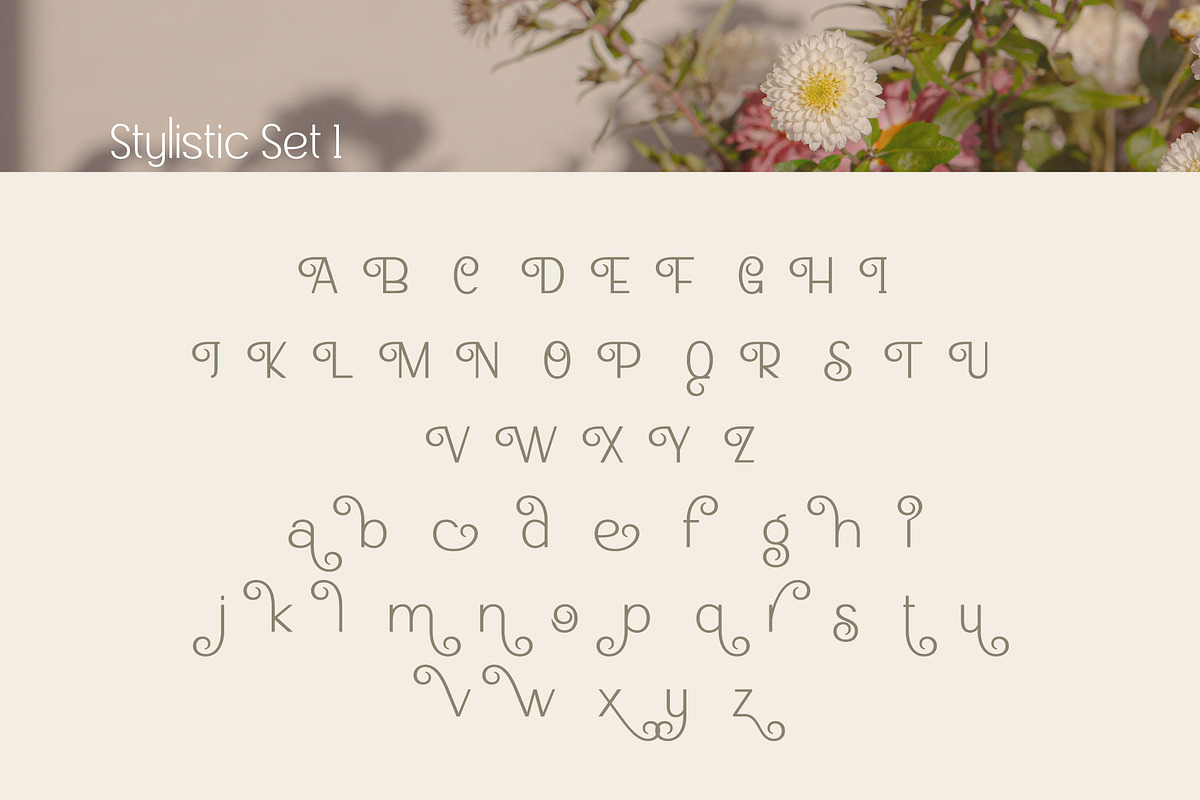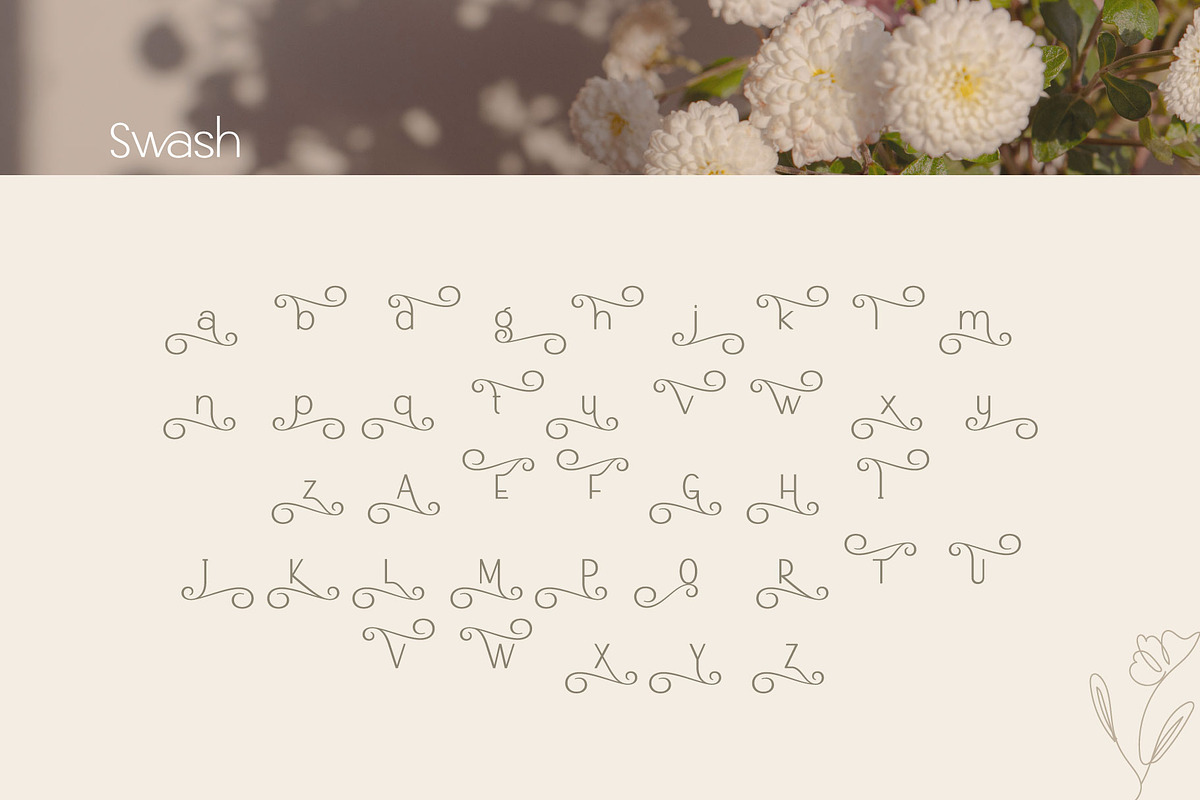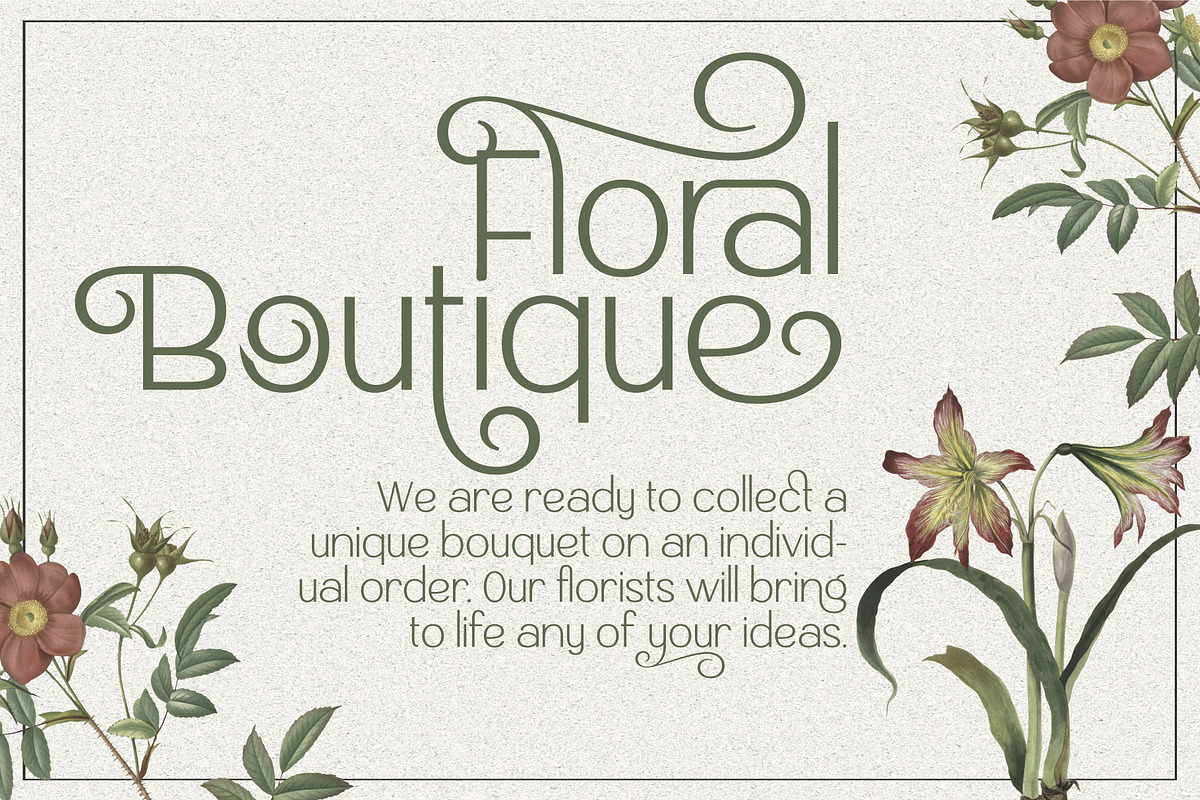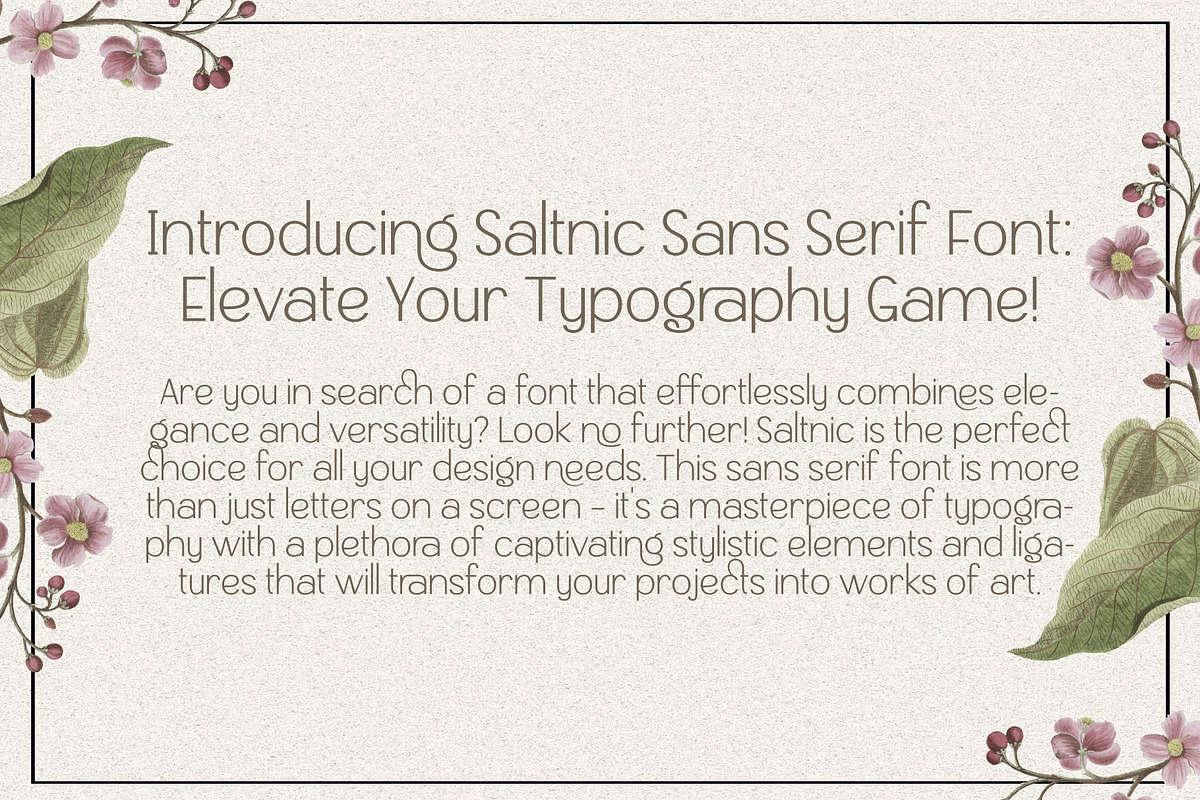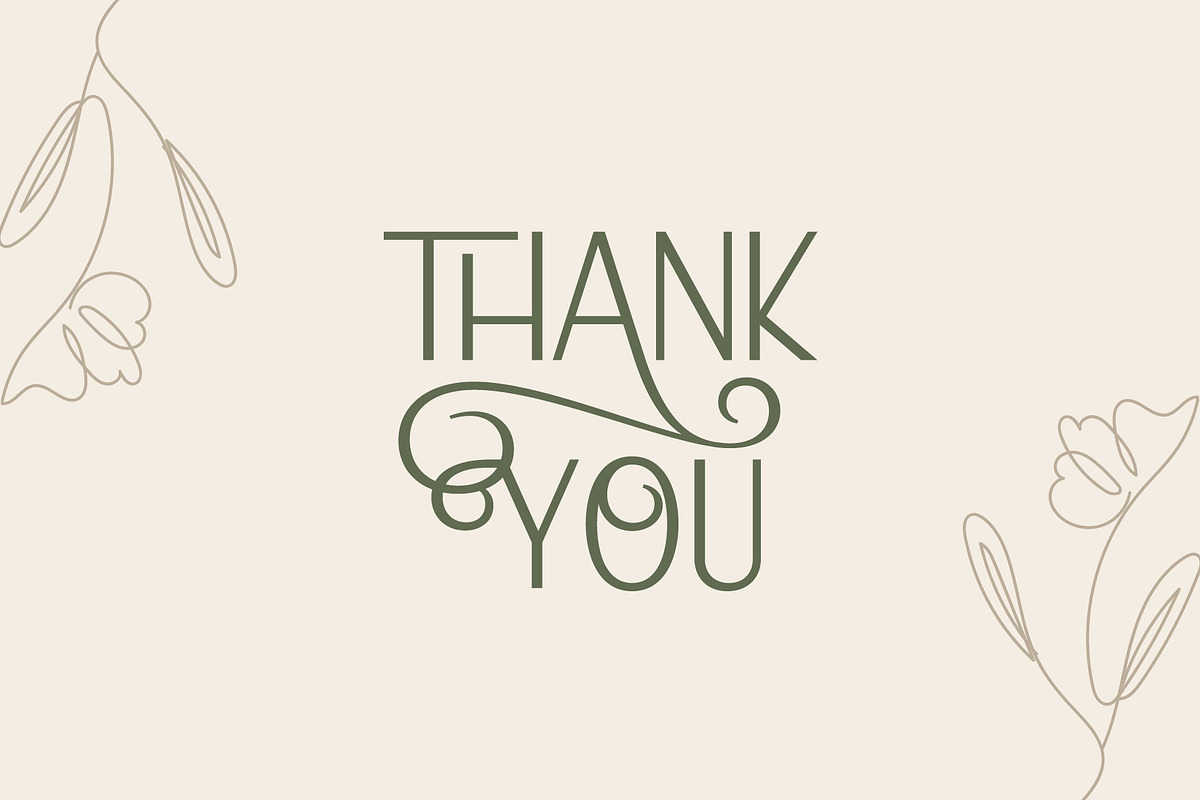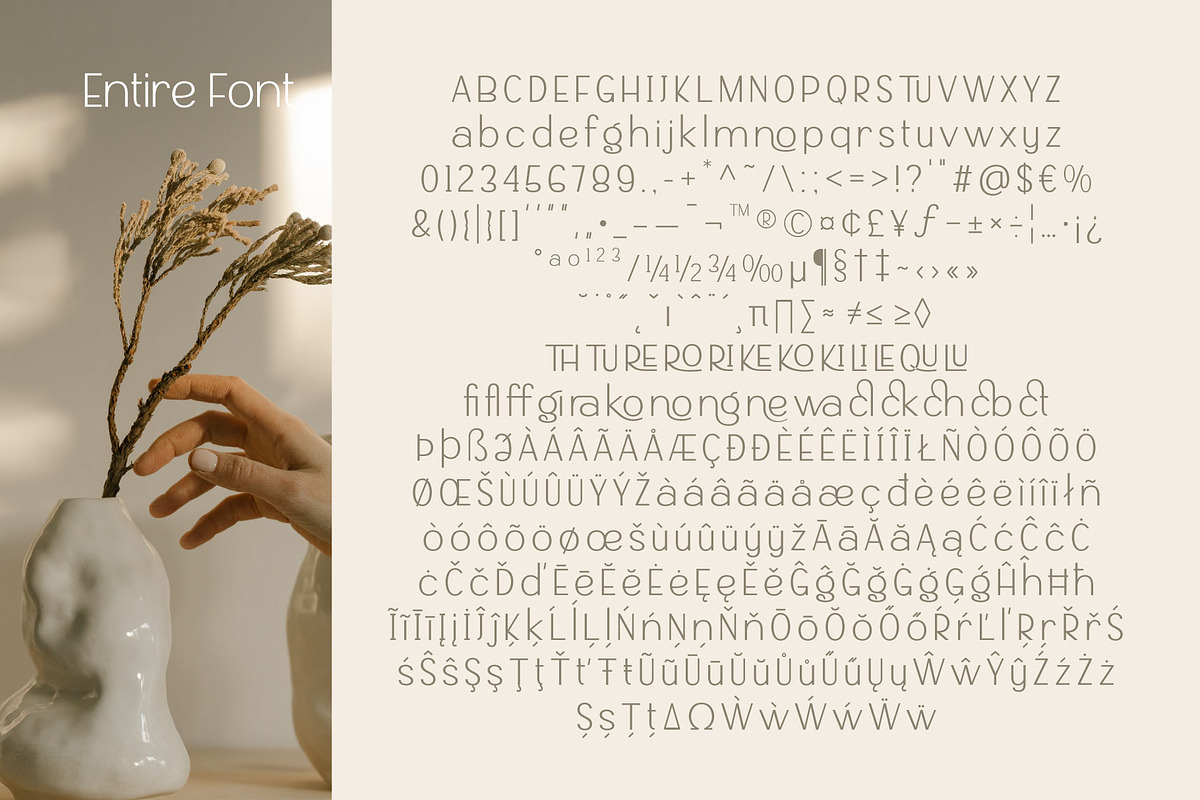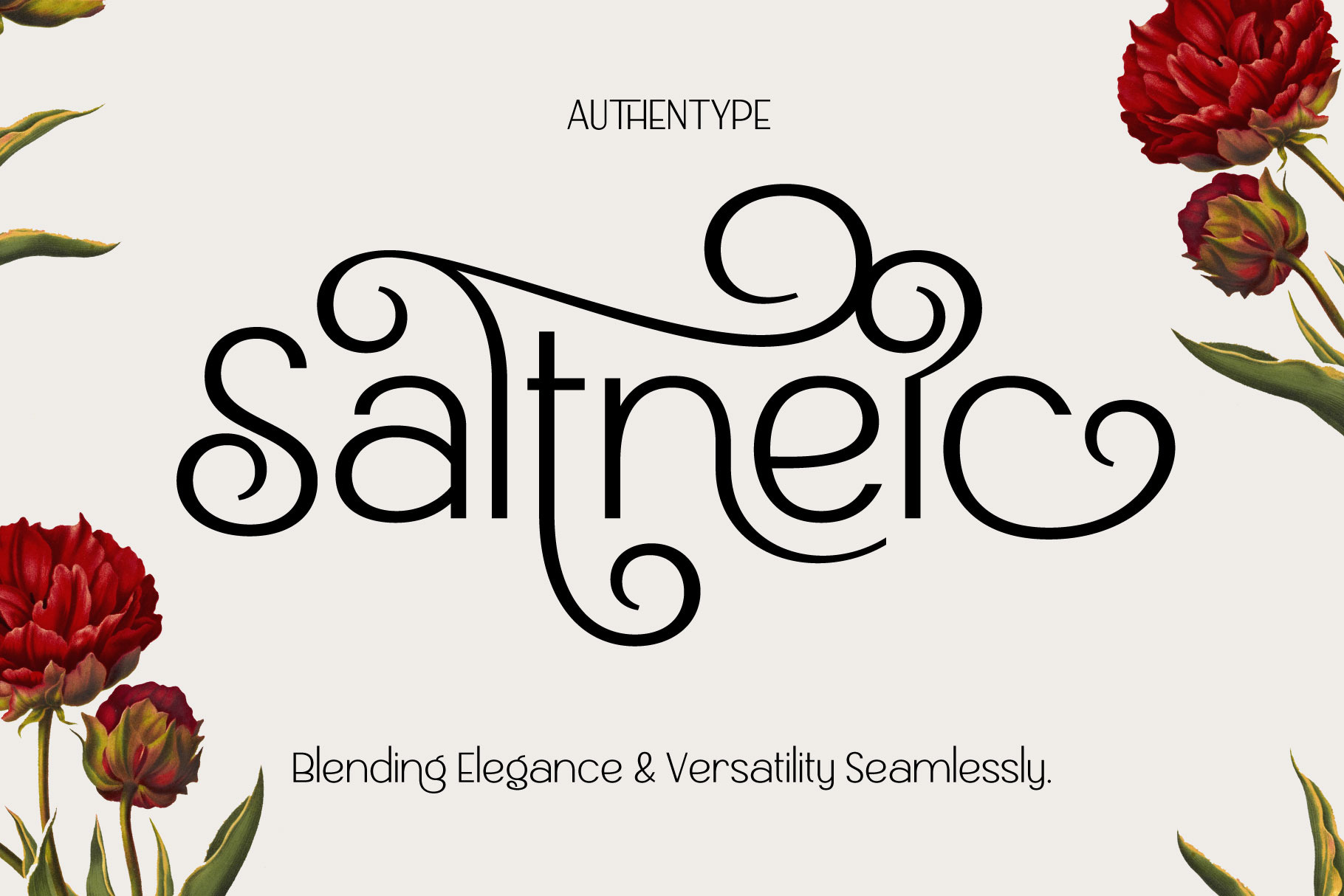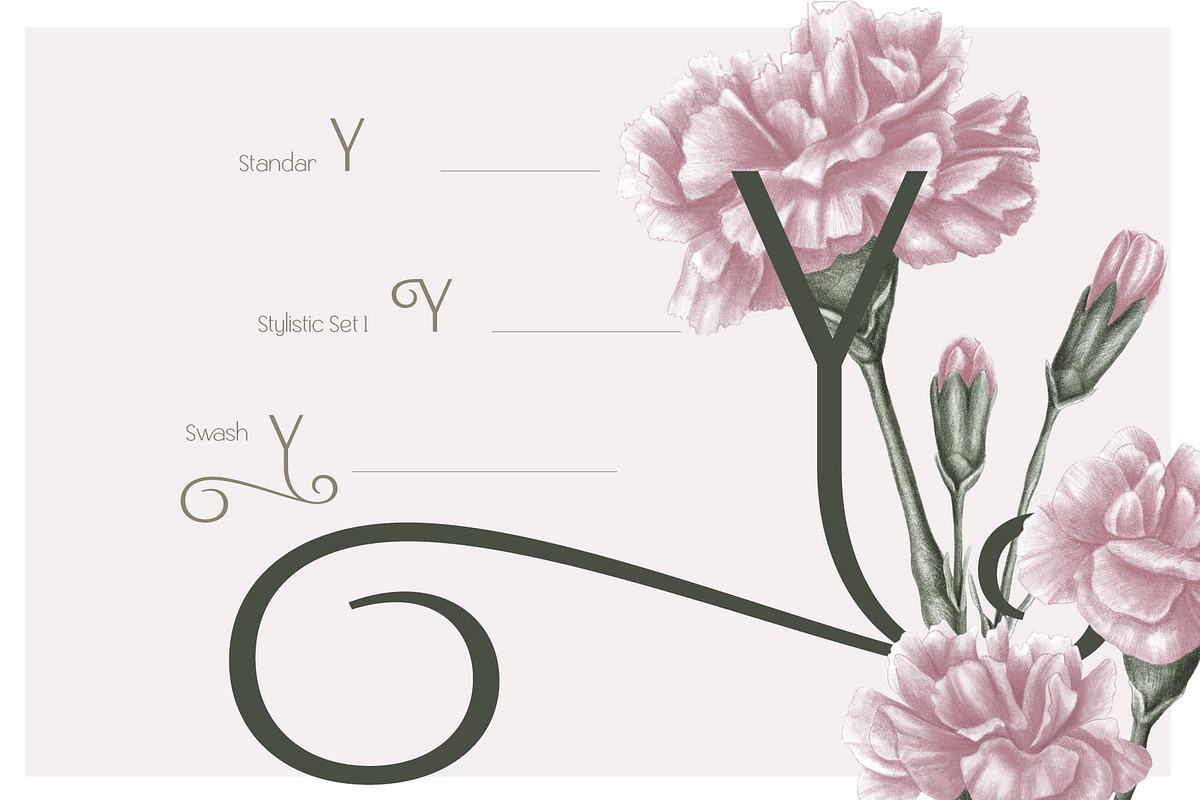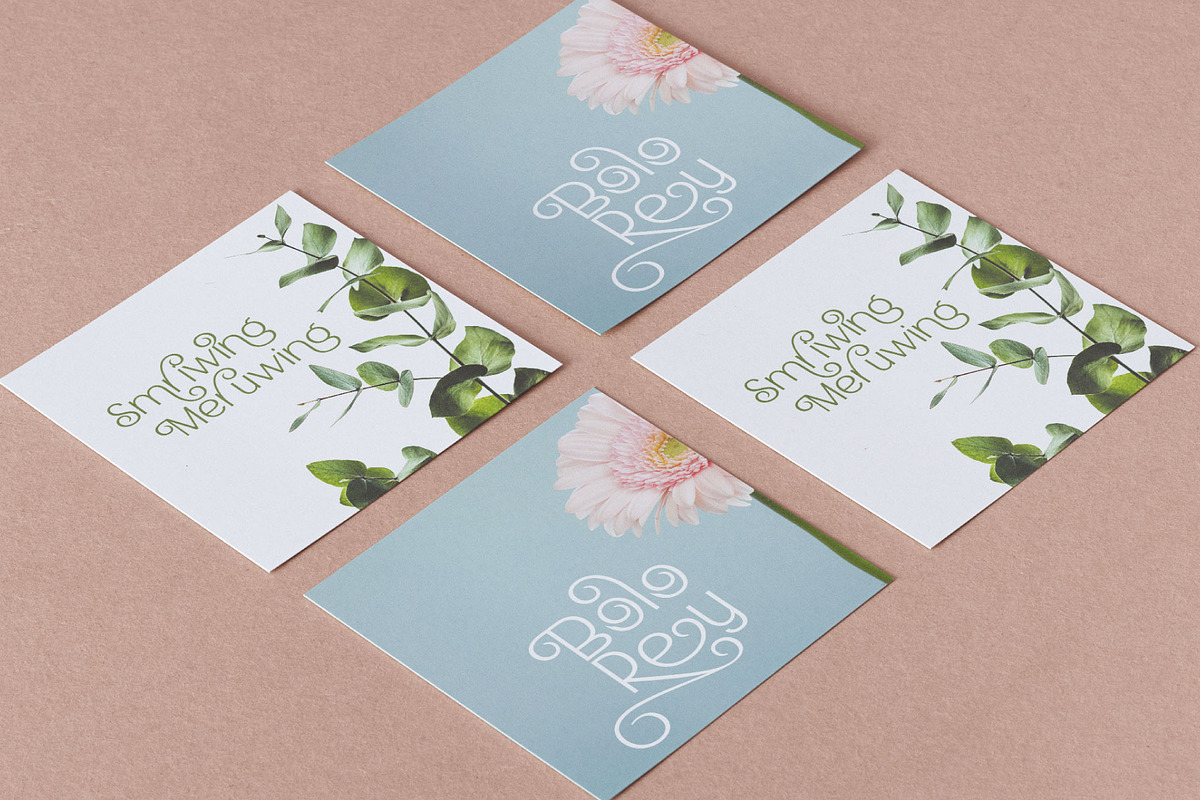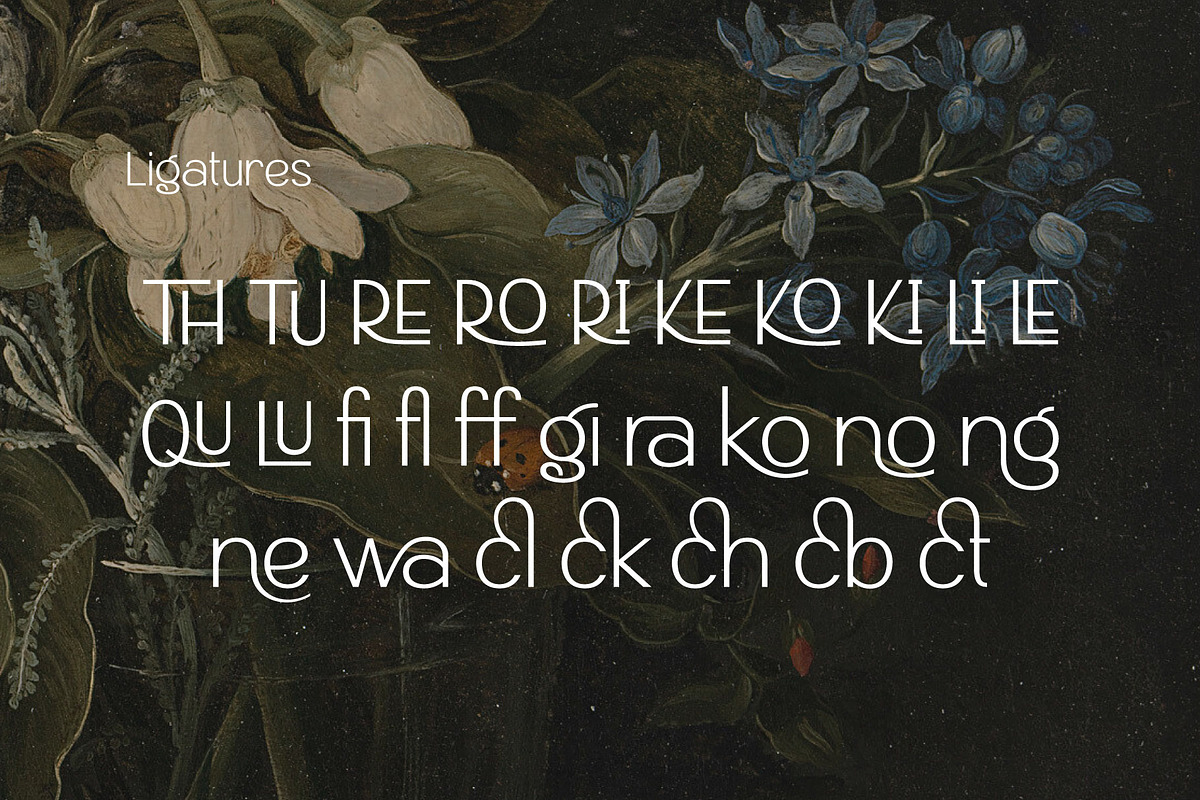
Saltnic Sans Serif Font
Introducing Saltnic Sans Serif Font: Elevate Your Typography Game!
Are you in search of a font that effortlessly combines elegance and versatility? Look no further! Saltnic is the perfect choice for all your design needs. This sans serif font is more than just letters on a screen – it's a masterpiece of typography with a plethora of captivating stylistic elements and ligatures that will transform your projects into works of art.
Stylistic Sophistication: Saltnic boasts a timeless and refined aesthetic that makes it suitable for a wide range of applications. Whether you're designing a website, crafting a logo, or creating stunning printed materials, this font's elegant demeanor will never disappoint.
Ligature Magic: The ligatures in Saltnic are a visual delight. These meticulously crafted connections between characters ensure that your text flows seamlessly, providing a visually pleasing and harmonious reading experience. Let your words dance gracefully across the page.
Versatile Usability: With its clean lines and balanced proportions, Saltnic is highly adaptable. Use it in both headings and body text for a cohesive, professional look that exudes confidence.
Modern Appeal: Saltnic doesn't just embrace tradition – it also welcomes contemporary design trends. Its sleek, modern design elements ensure that your projects stay relevant and fresh.
Multiple Weights: Saltnic comes in various weights, allowing you to explore creative possibilities. From light and airy to bold and striking, you have the flexibility to choose the perfect style for your design.
Extensive Language Support: Reach a global audience with Saltnic's comprehensive language support. Communicate your message with clarity and beauty in multiple languages.
Saltnic is not just a font; it's a design companion that will help you make a lasting impression. Elevate your typography game and add an air of sophistication to your projects with this exquisite sans serif font. From branding to editorial design, Saltnic ensures that your message is not just seen but also felt.